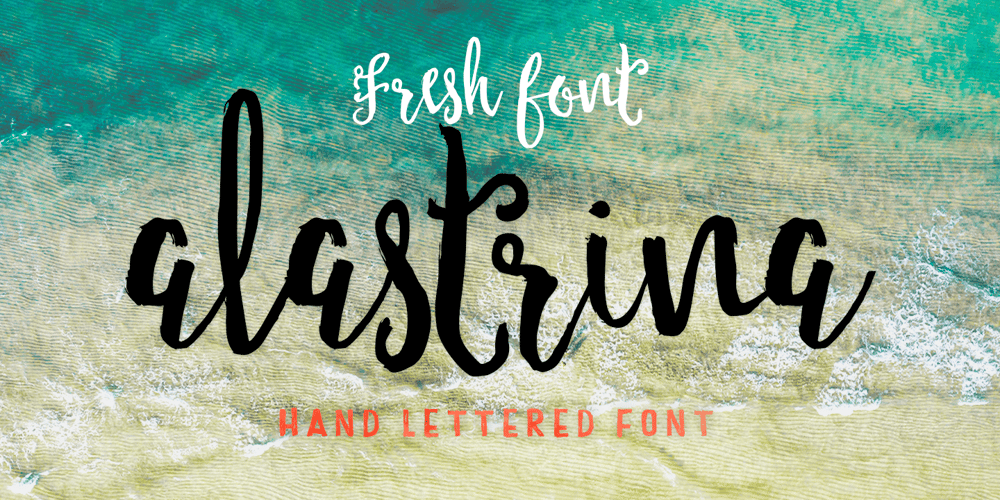
Alastrina
Alastrina font
Alastrina Font Family was designed by Ambia and published by Areatype. Alastrina contains 1 styles and family package options. Alastrina is a new, very interesting brushed font. This font family is perfect for branding projects, logos, product packaging, posters, invitations, greeting cards, news, blogs, everything including personal charm and more.Thanks so much for looking and please let me know if you have any questions.